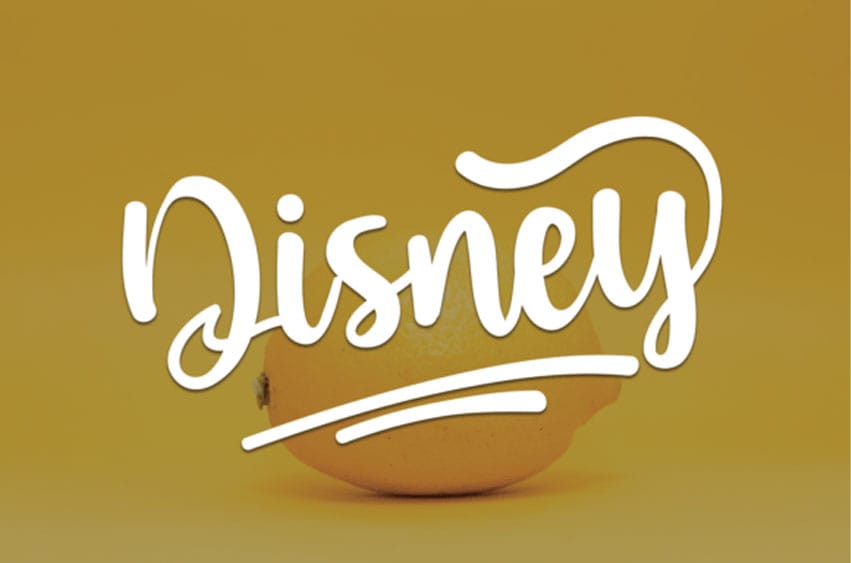
Disney Font is a flowing and graceful handwritten font.
Fall for its chic style and use it to create gorgeous wedding invitations, beautiful stationary art, eye-catching social media posts, and much more!